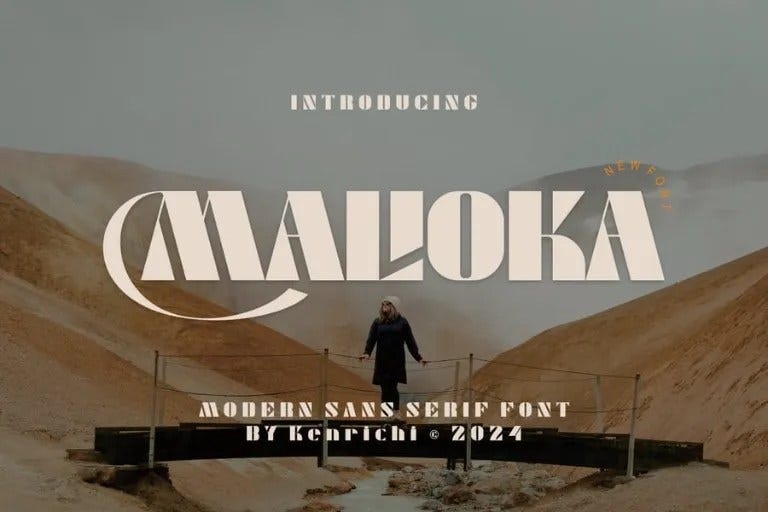
Malioka Font
Malioka Font is modern and real genuine font. Ideal for company or product promotion and for business people. Everyone can use this font in any branding project such as quotes, logo, blog header, poster, banner, letter, invitation and stationery, etc. Conceived as multipurpose and adaptable, suitable for use on any project and anyone in media. outstanding in numerous situations.
Malioka Sans Serif Font